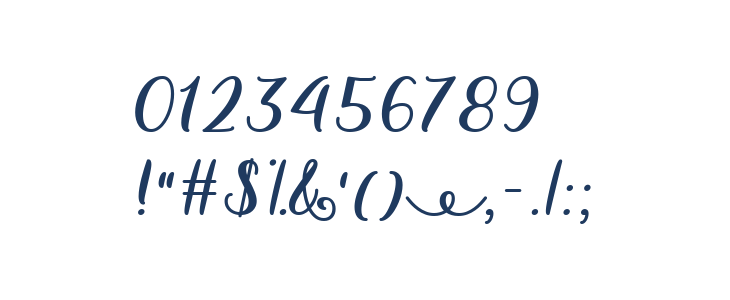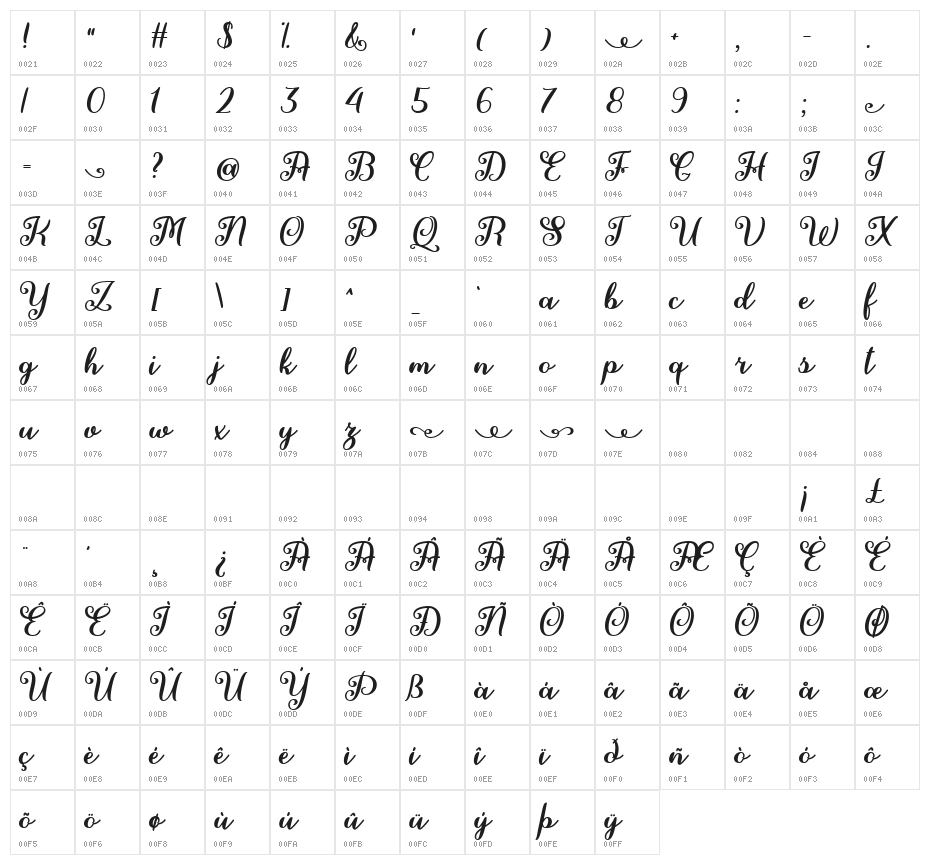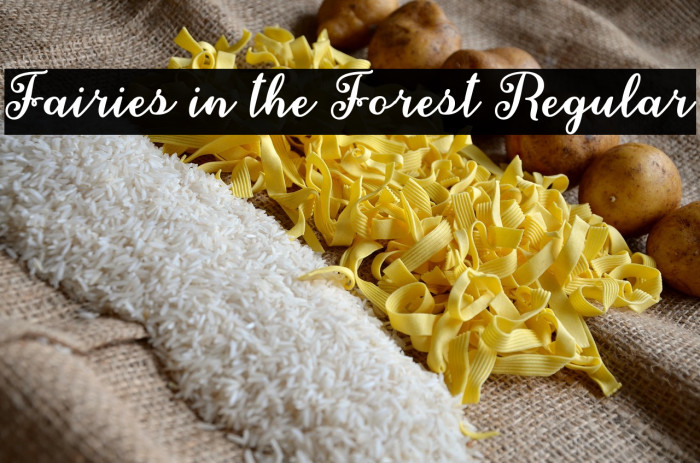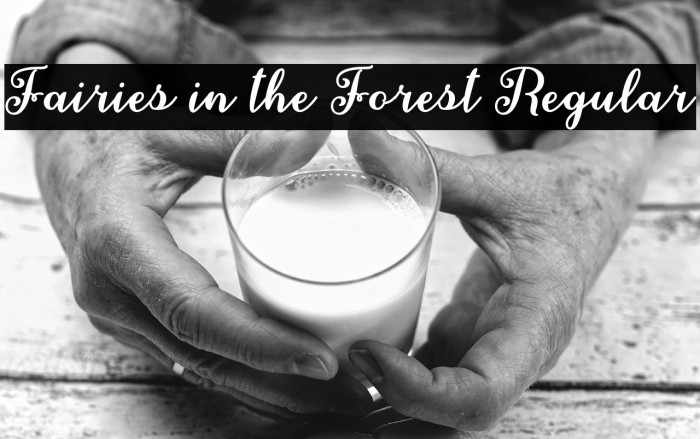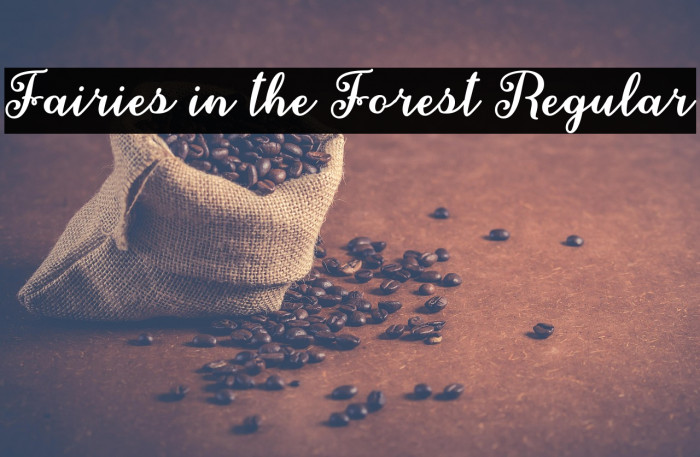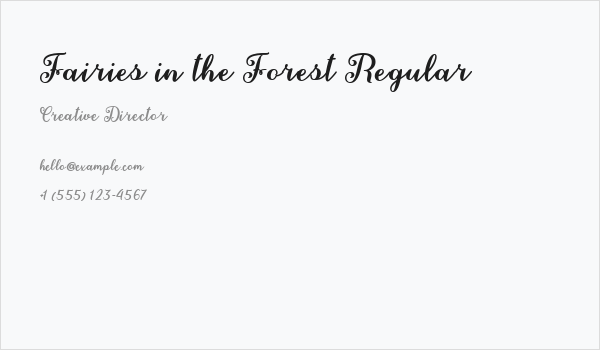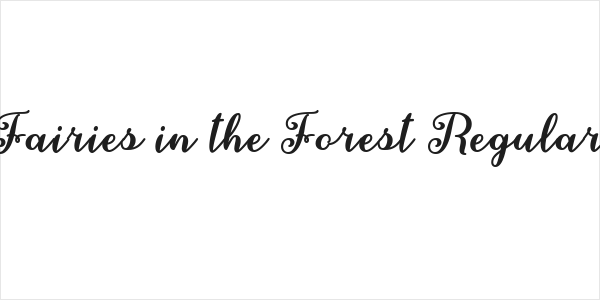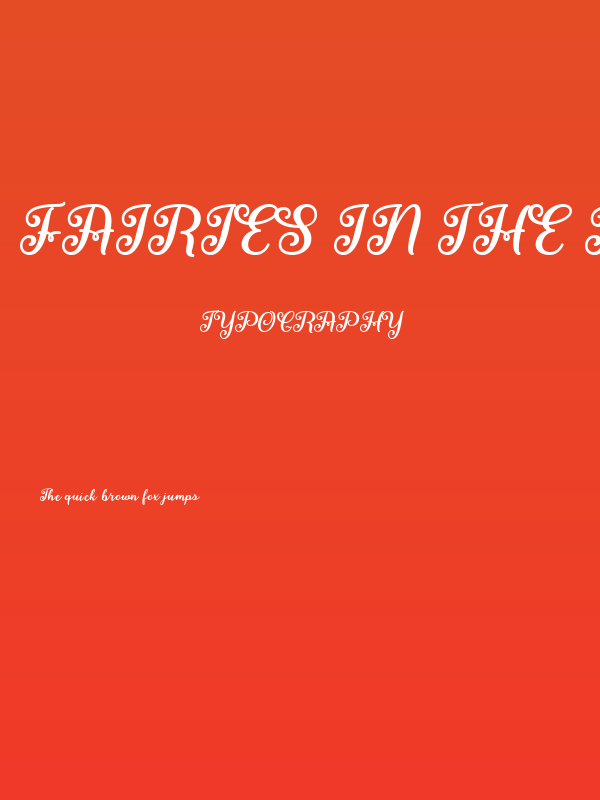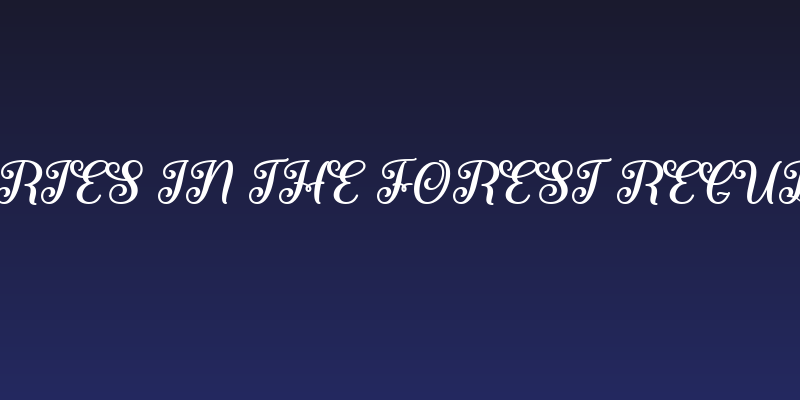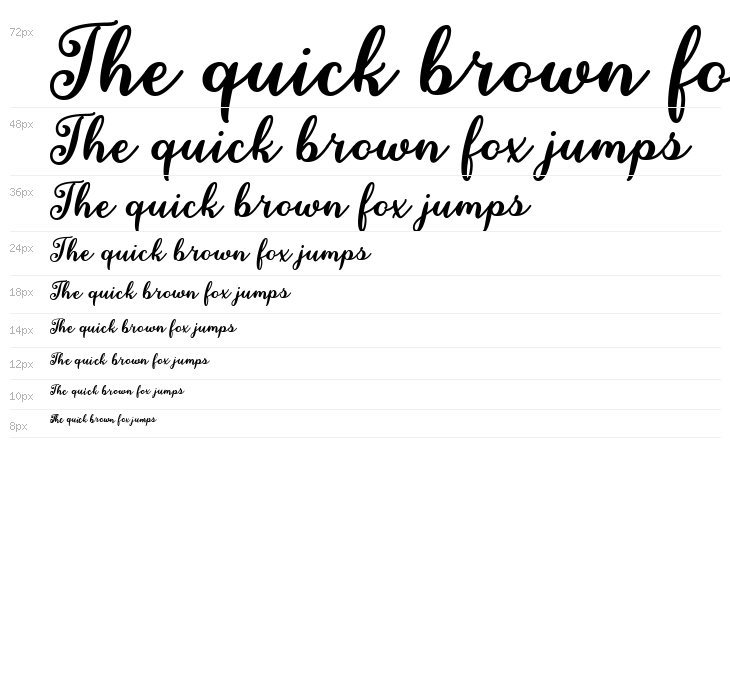
Fairies in the Forest Regular Font
Fairies in the Forest Regular Description
This font features an elegant and whimsical script style, characterized by its flowing and interconnected letterforms. The uppercase letters are adorned with delicate swirls and loops, adding a touch of sophistication and playfulness. The lowercase letters maintain a consistent flow, enhancing readability while retaining the decorative essence. Numbers and special characters are crafted with the same attention to detail, ensuring a cohesive look across all text elements. The overall design exudes a fairy-tale charm, making it suitable for projects that require a magical or enchanting aesthetic.
| Use Case | Logos, Invitations, Decorative Text |
| Proposed Projects | Ideal for wedding invitations, fantasy-themed designs, greeting cards, and branding for boutique businesses. |